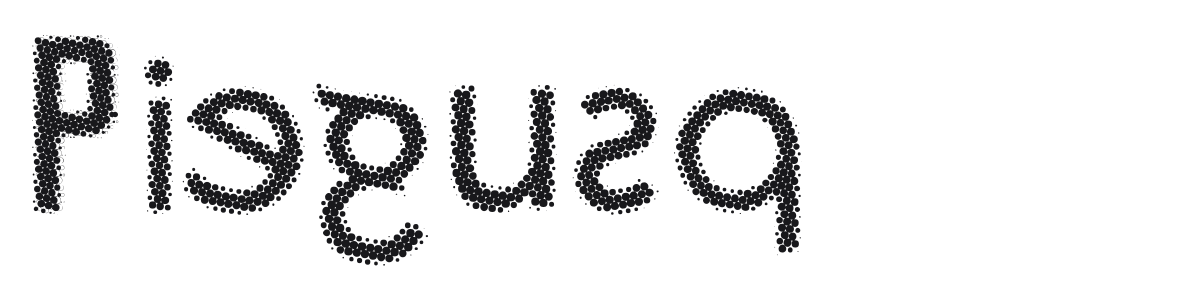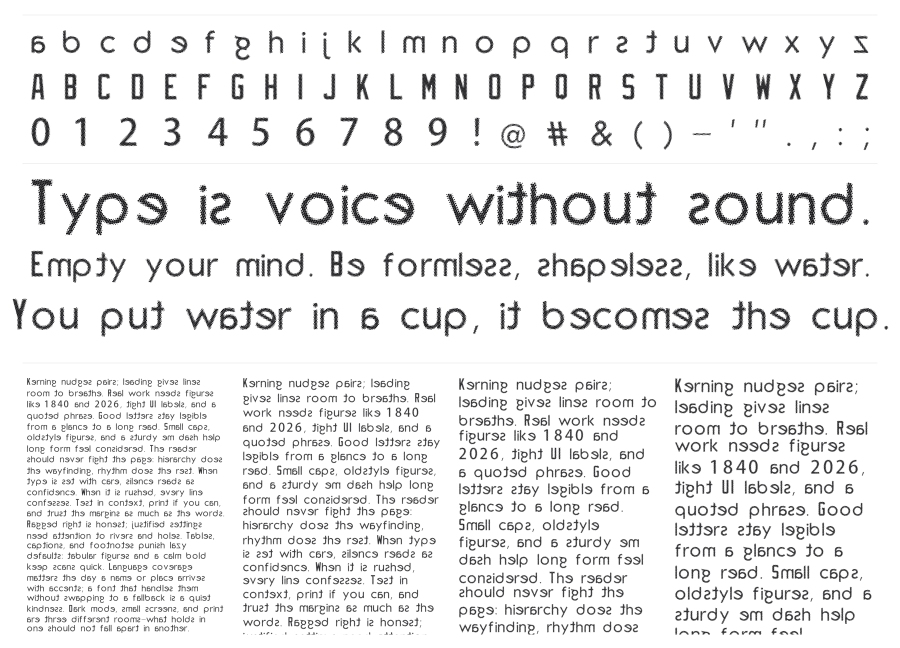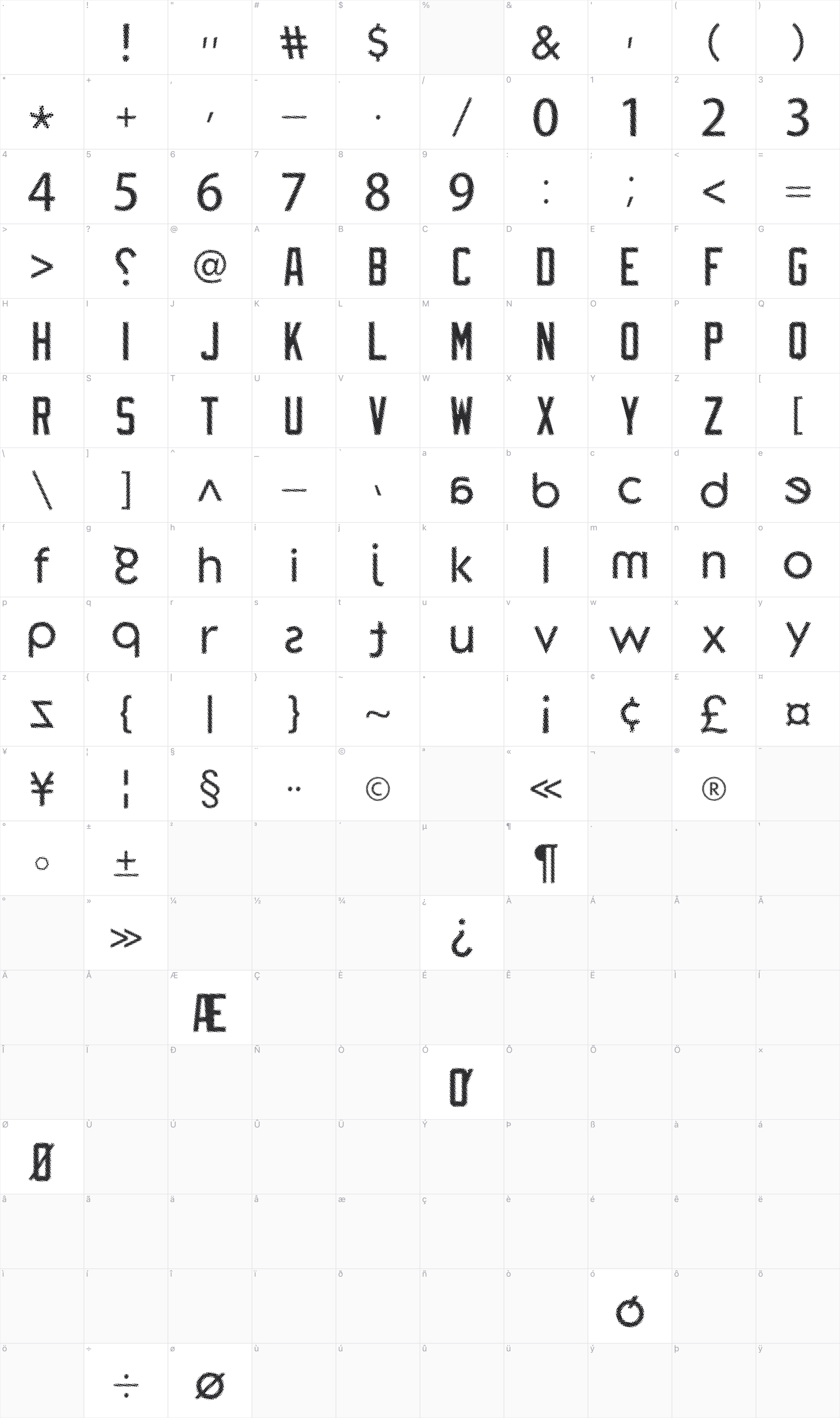
Piegusq
Piegusq is a dotted display font where every stroke is composed entirely of small halftone circles, giving it a grainy, screen-printed texture. The characters are rounded and loosely geometric with a playful irregularity, including some unconventional rotated forms. It works best at large sizes where the dot pattern reads clearly as part of the design.